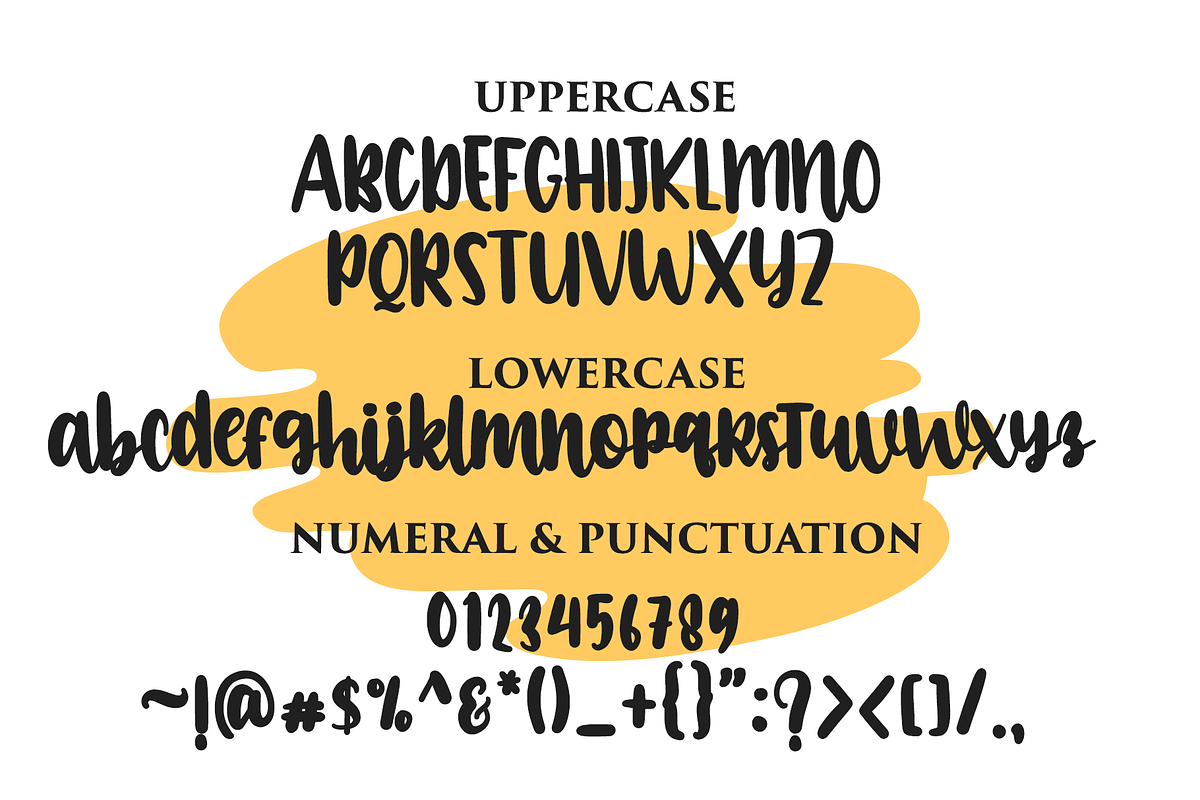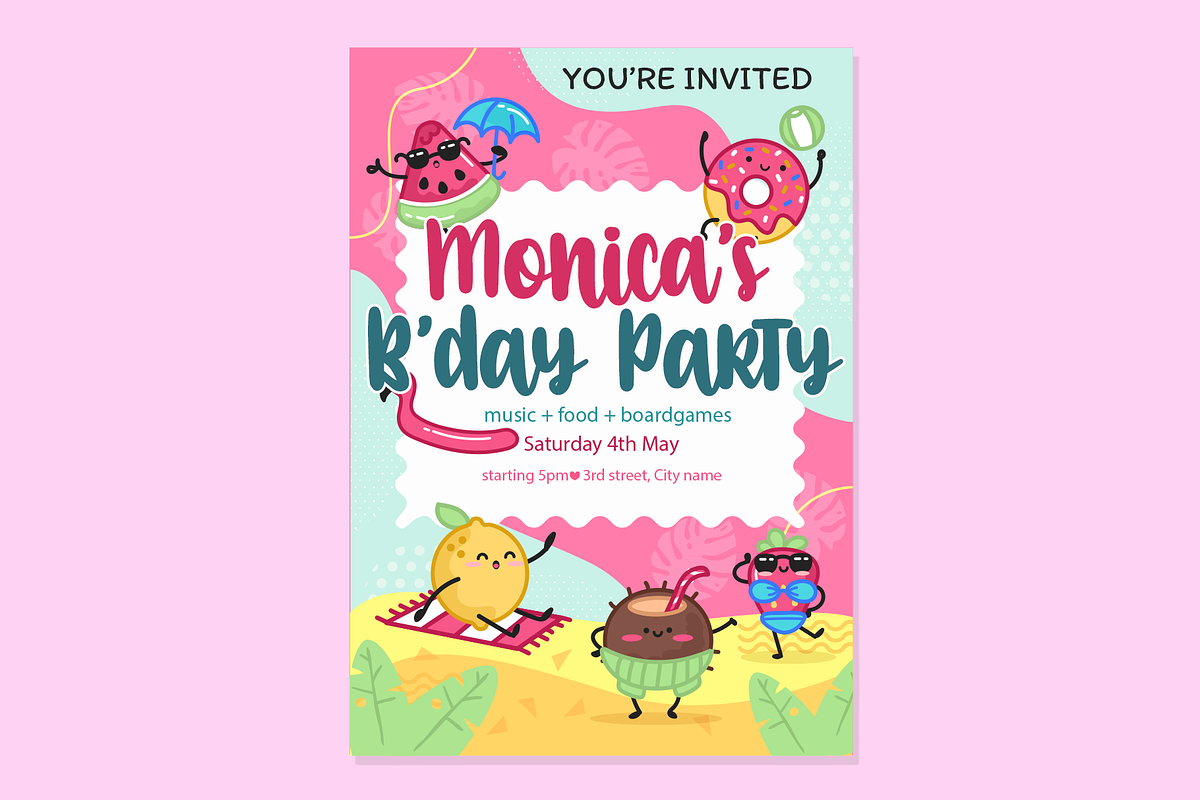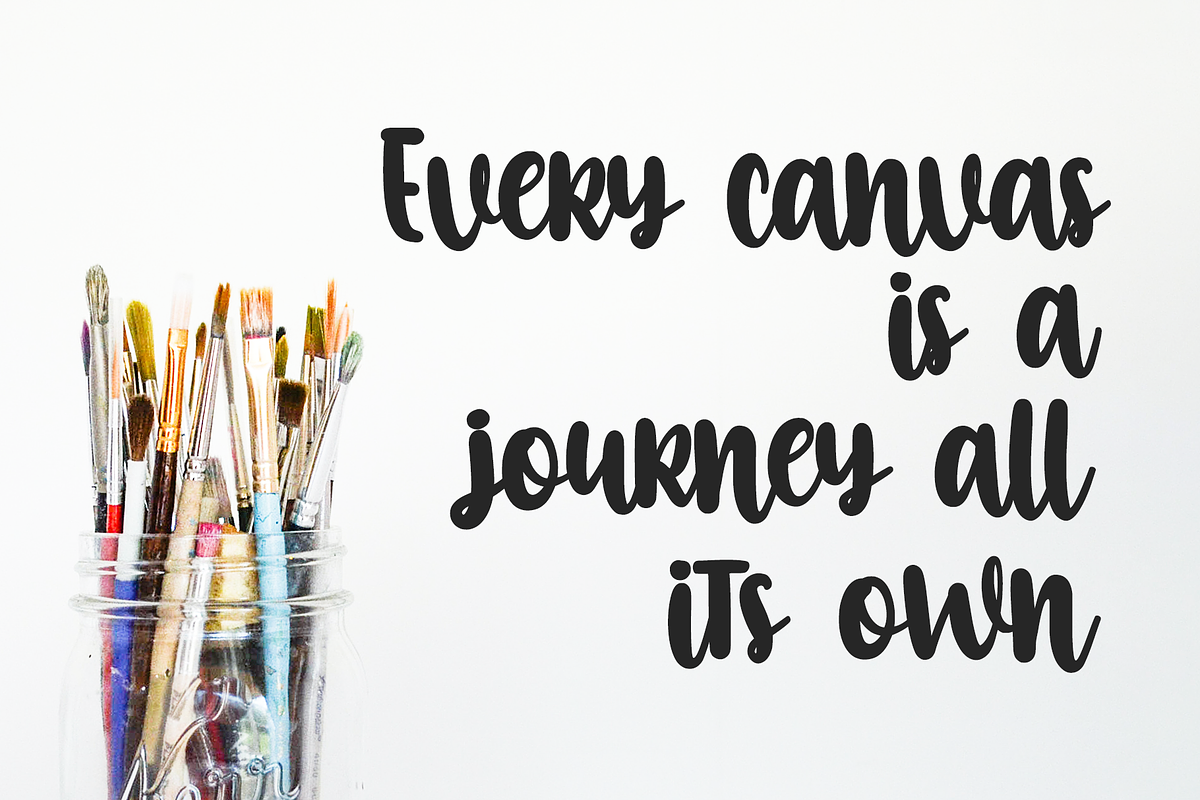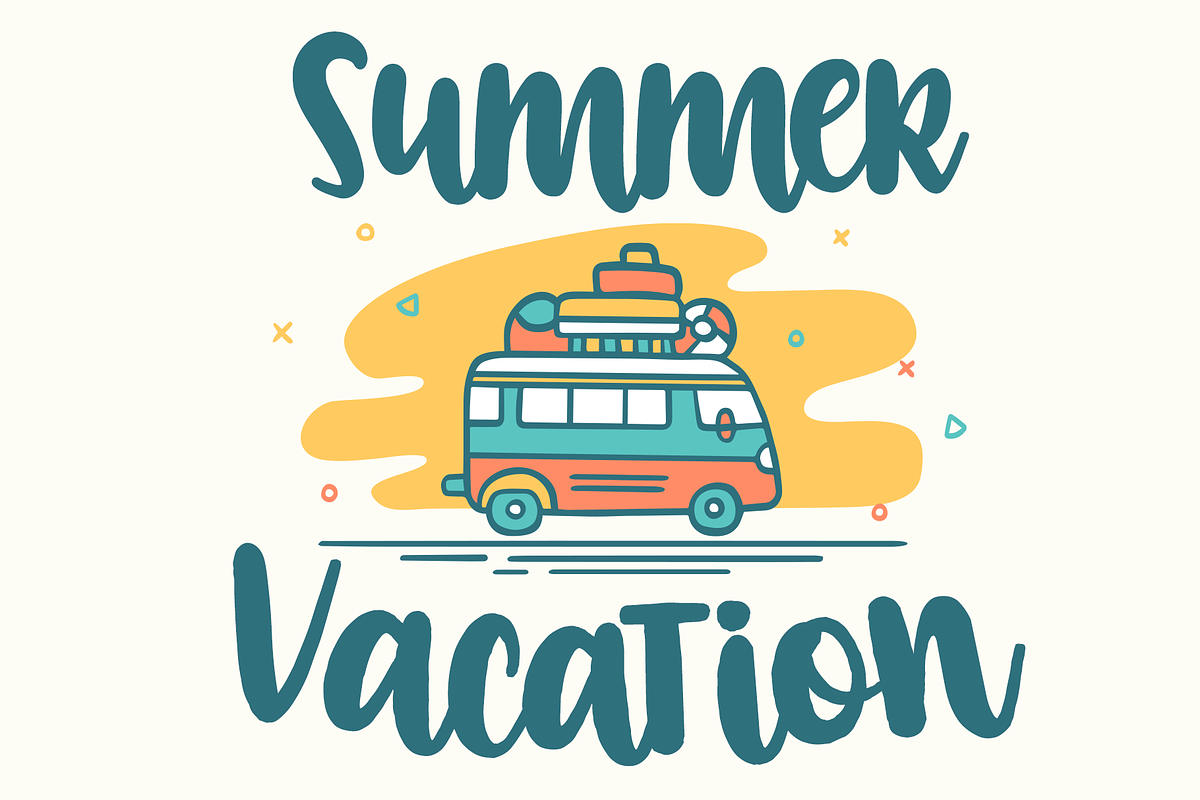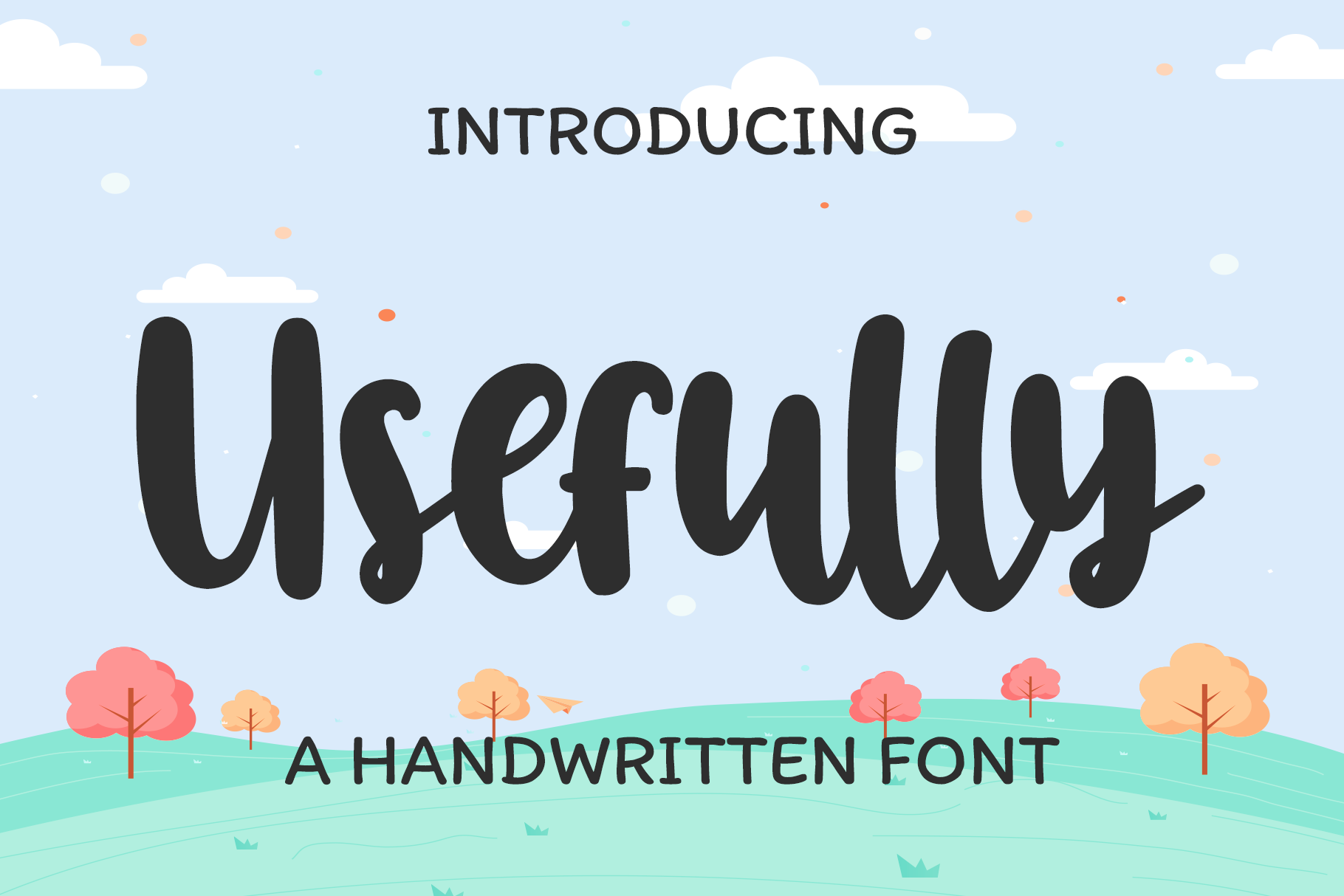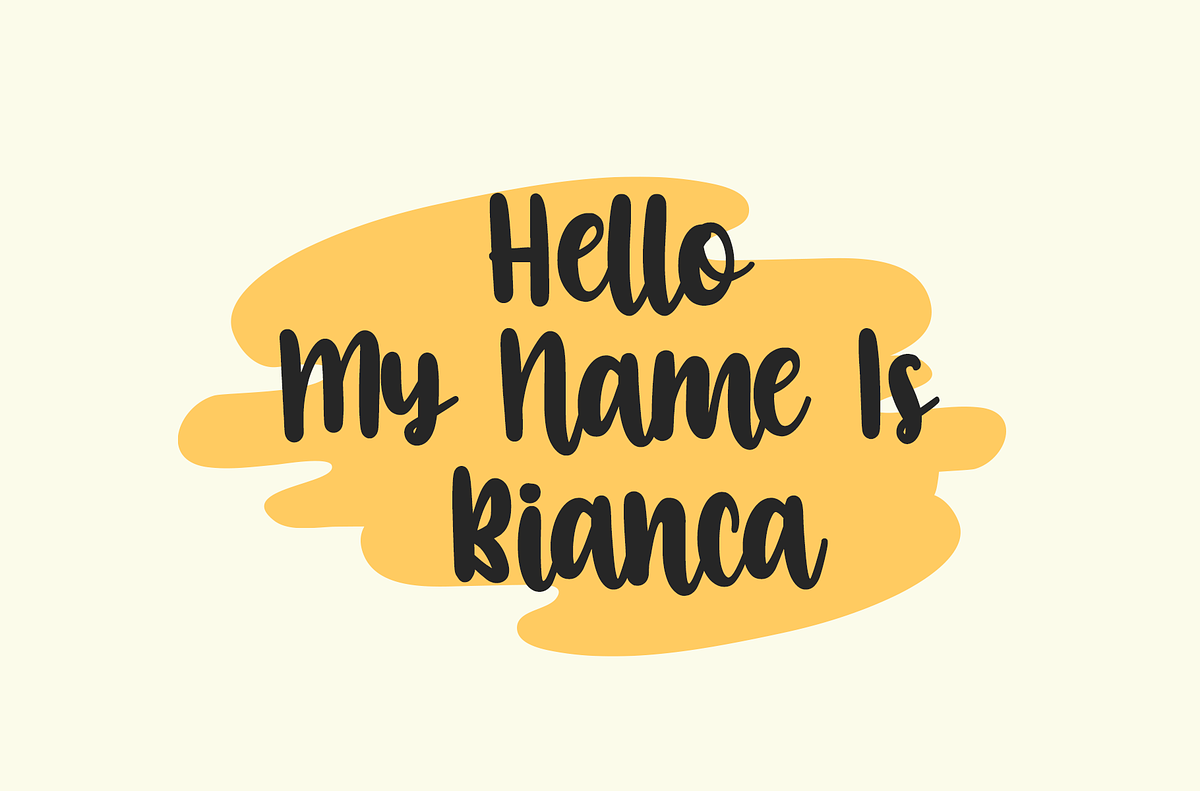
Usefully | Crafts Font
Usefully is a quirky and laid-back handwritten font. Whatever the topic, this font will be a wonderful asset to your font library, as it has the potential to enhance any creation.
- Ligature Character